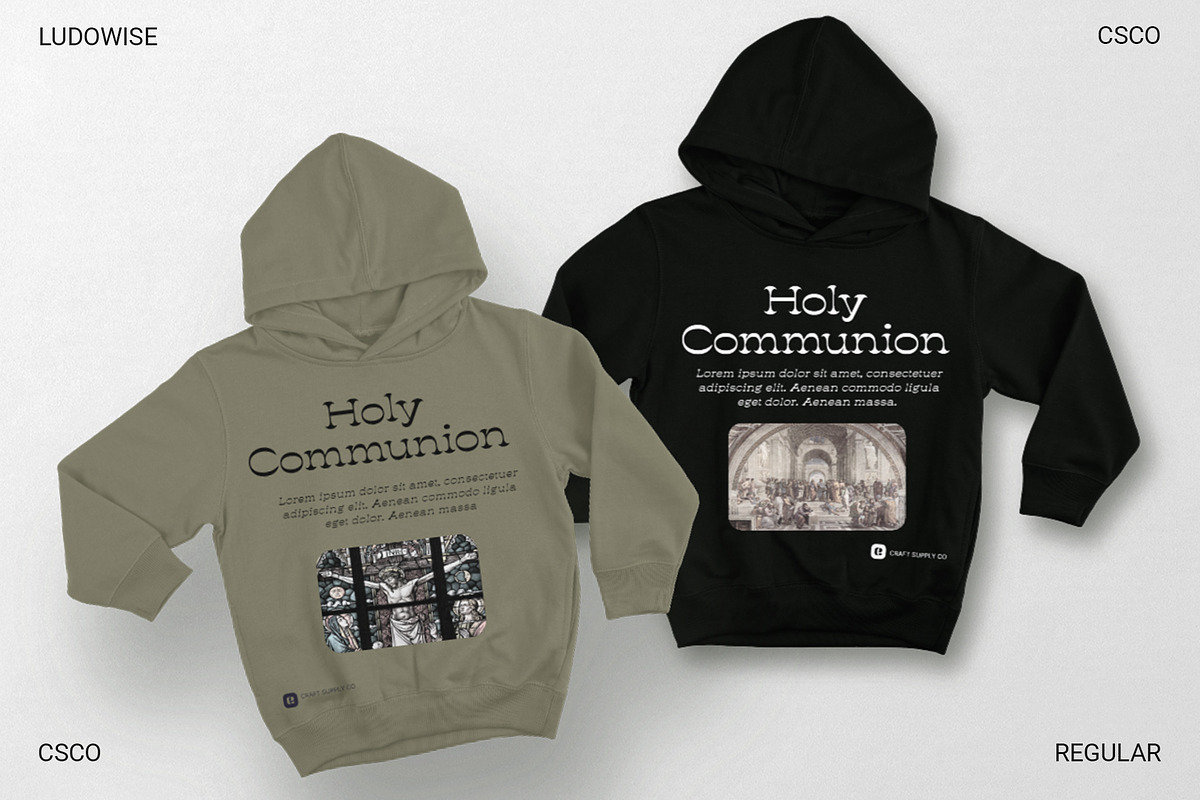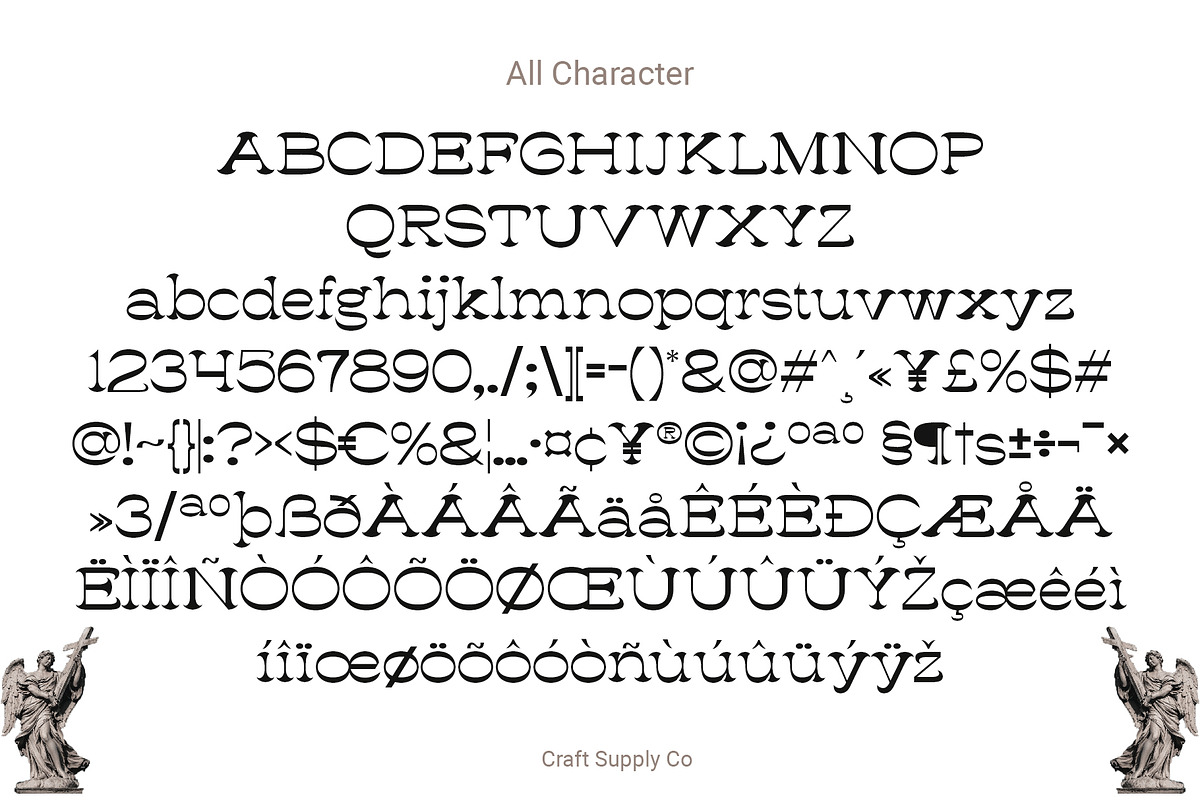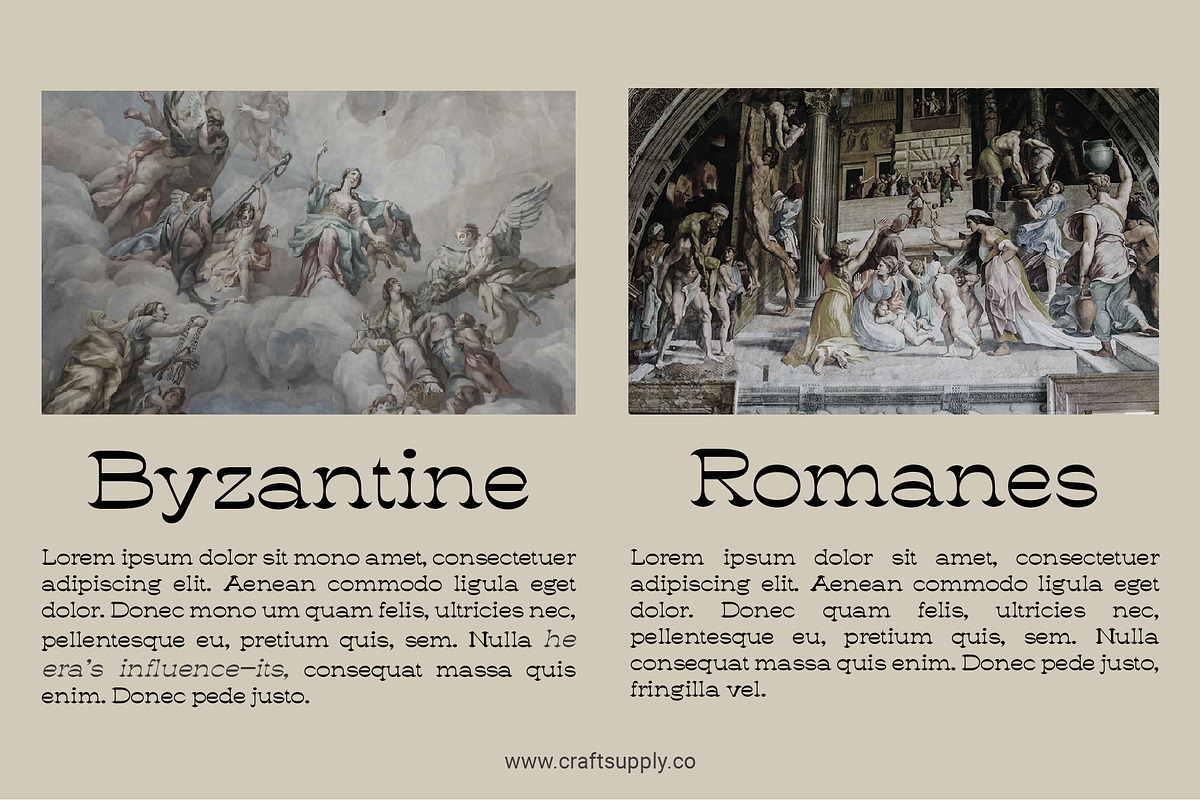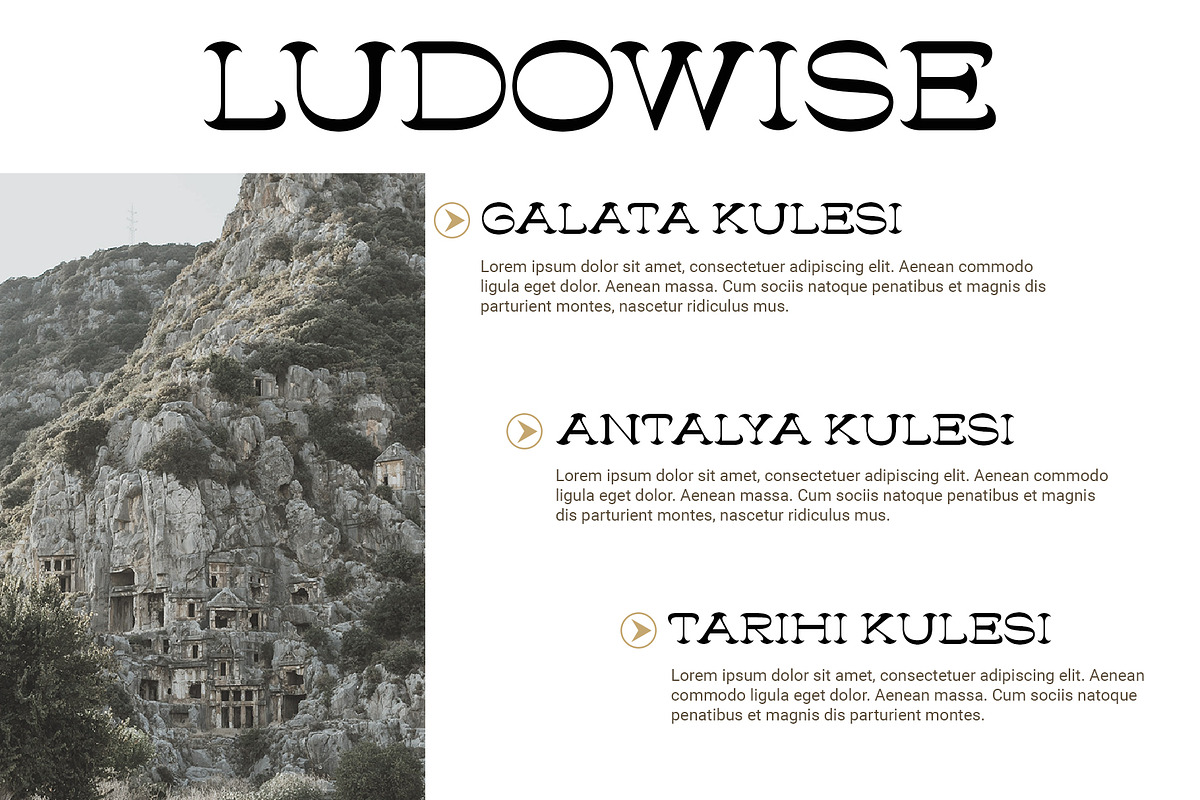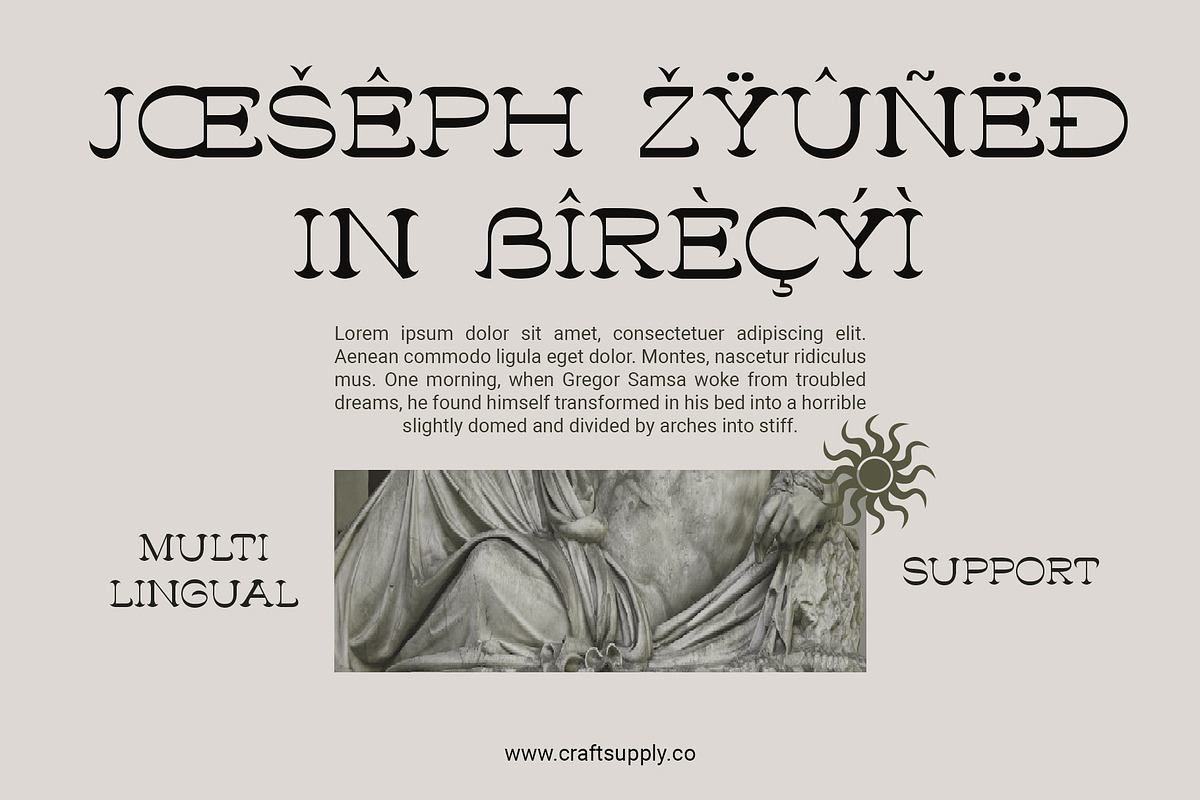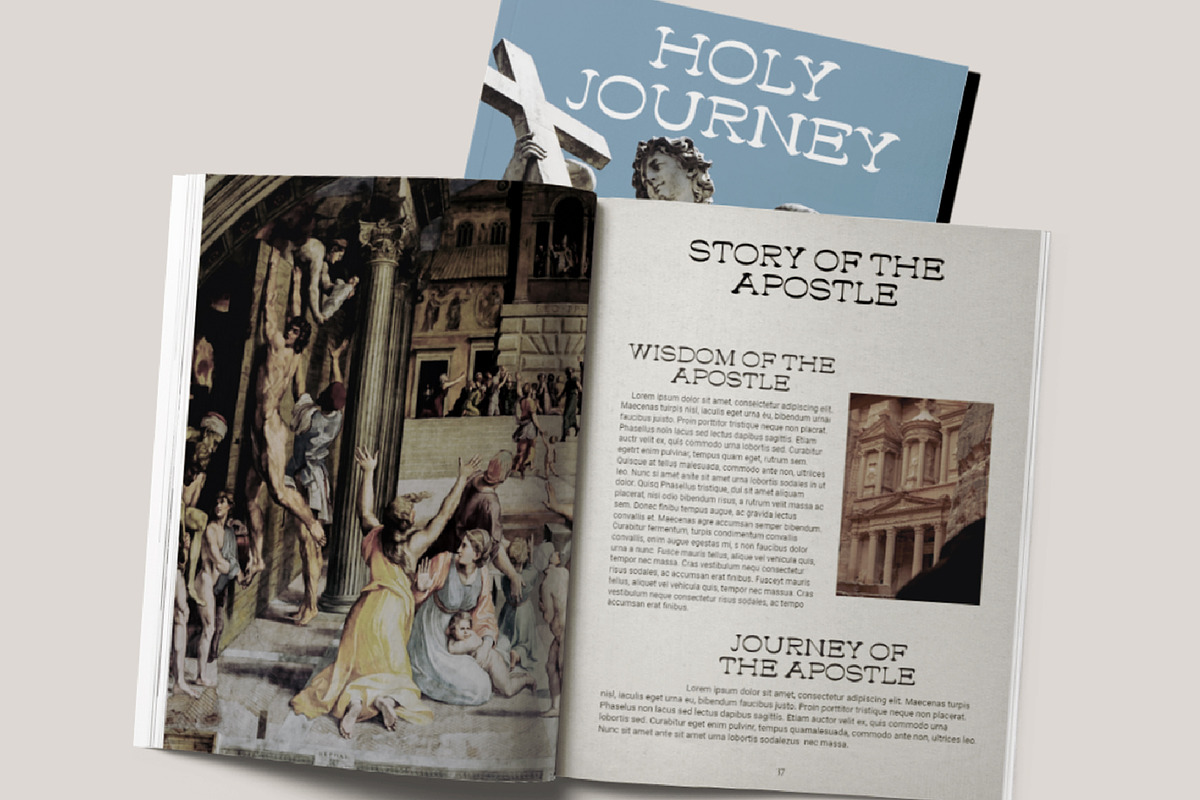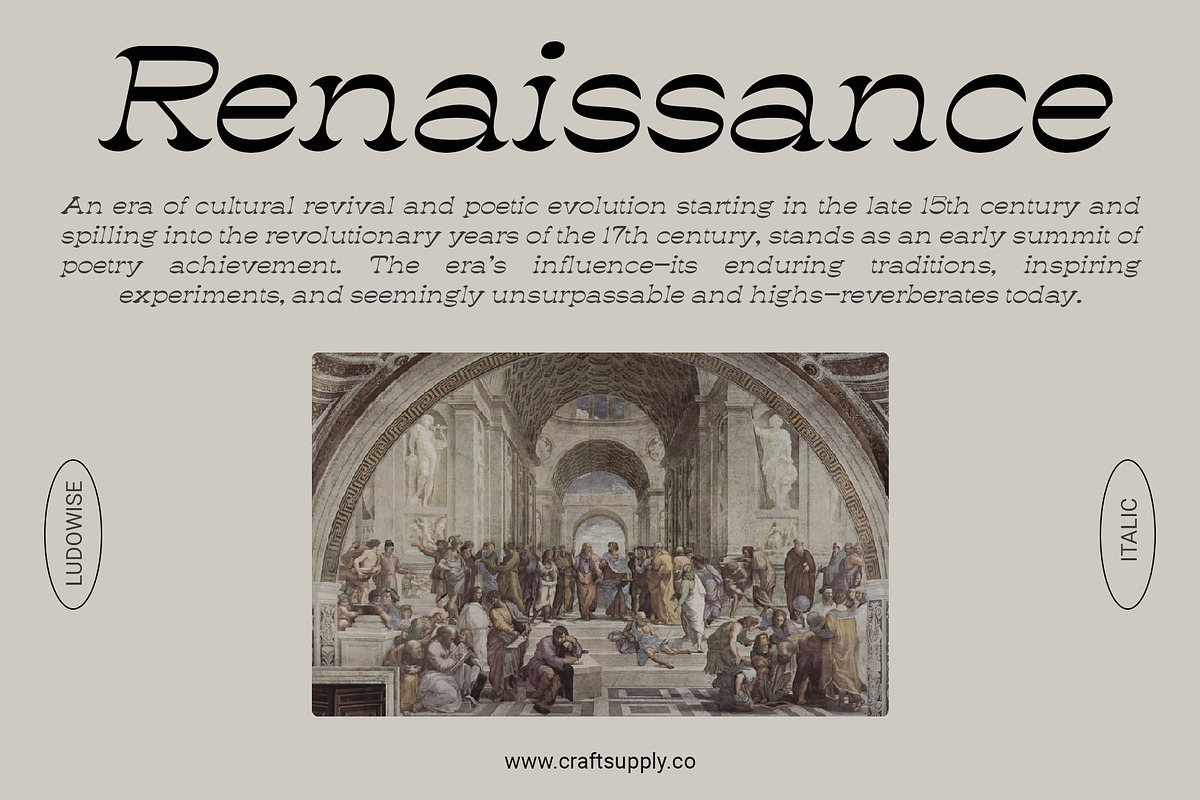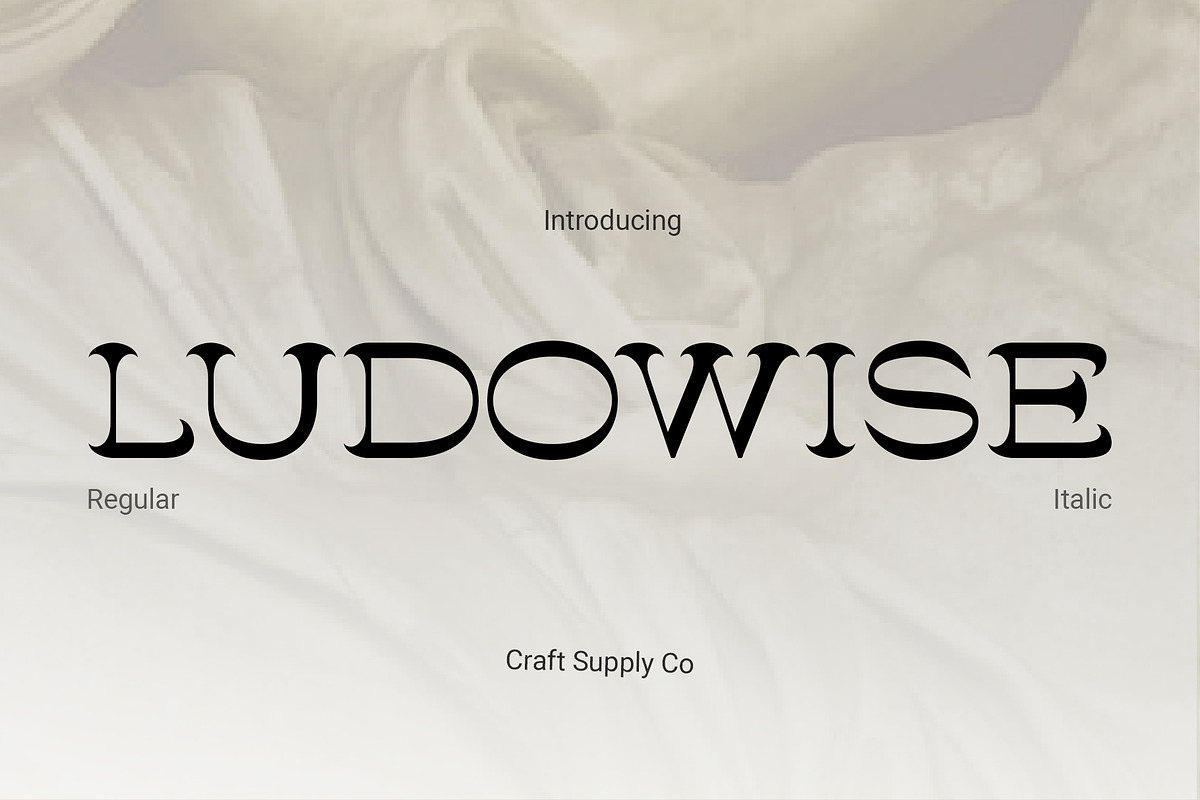
Ludowise – Contemporary Serif
Ludowise – Contemporary Serif Typography
Innovative Reverse Contrast Ludowise breaks conventions with its reverse contrast display, where the thin strokes are replaced by thick ones, creating a bold and contemporary look that commands attention.
Striking Display Appeal Designed specifically for display purposes, Ludowise excels in catching the eye and making a statement. Its unique reverse contrast adds visual interest and intrigue to any project.
Modern Interpretation of Serif While rooted in traditional serif typography, Ludowise offers a fresh interpretation with its reverse contrast approach. This modern twist breathes new life into the classic serif style, making it relevant for today’s design landscape.
Versatile Application Possibilities Ludowise’s versatility extends beyond its striking appearance. Whether used in branding, packaging, or editorial design, its contemporary serif style lends a touch of sophistication and uniqueness to any project.
Bold, Contemporary, and Unforgettable Ludowise Contemporary Serif emerges as a bold and unforgettable choice for display typography. Its innovative reverse contrast design challenges norms and offers a fresh perspective on serif fonts, making it a standout option for designers seeking contemporary appeal. Experience the allure of Ludowise and elevate your designs with its captivating presence.